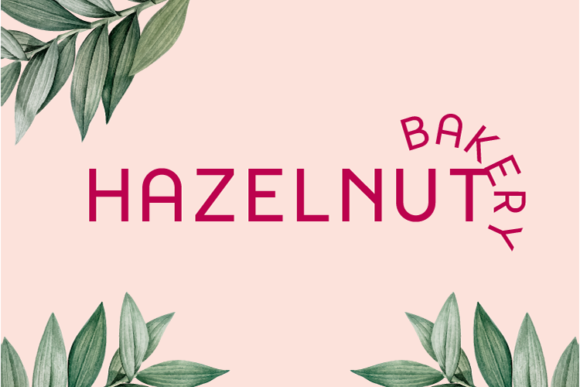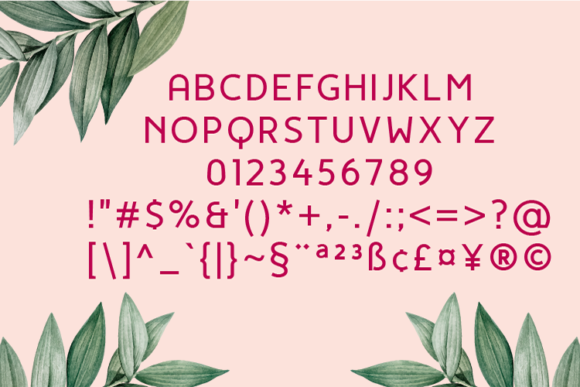
Introduction to Kwoto Medium Font
Kwoto Medium is a brand new sans serif font.
This font is ideal for branding and decorating any of your projects It can be used in a wide variety of applications from logos, posters, book covers to anything else you can think of.
Key Features of Kwoto Medium Font
Why Choose Kwoto Medium Font?
Kwoto Medium Font offers exceptional quality and versatility, making it a valuable addition to your design toolkit. Whether you’re creating for personal projects or commercial use, Kwoto Medium Font delivers professional results.